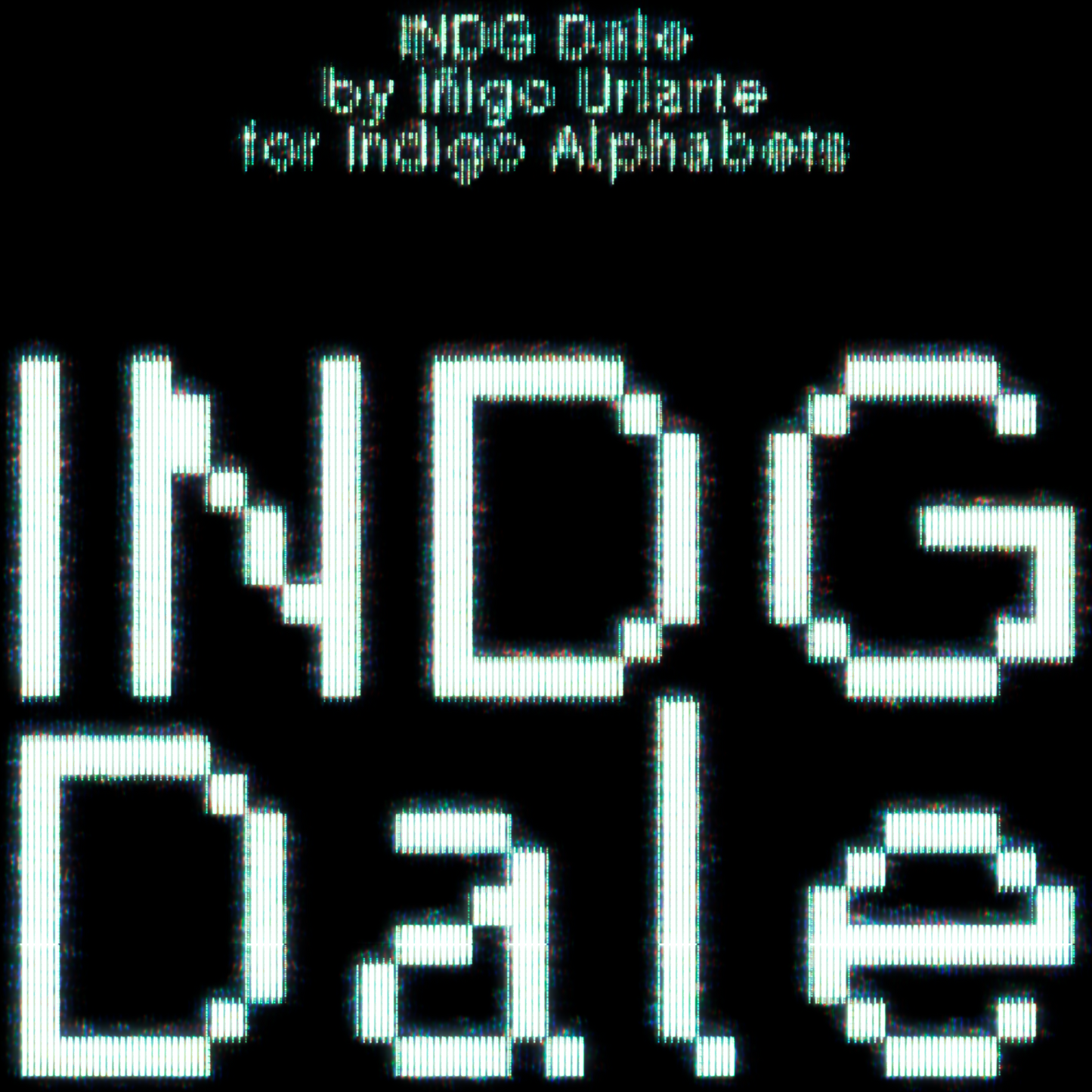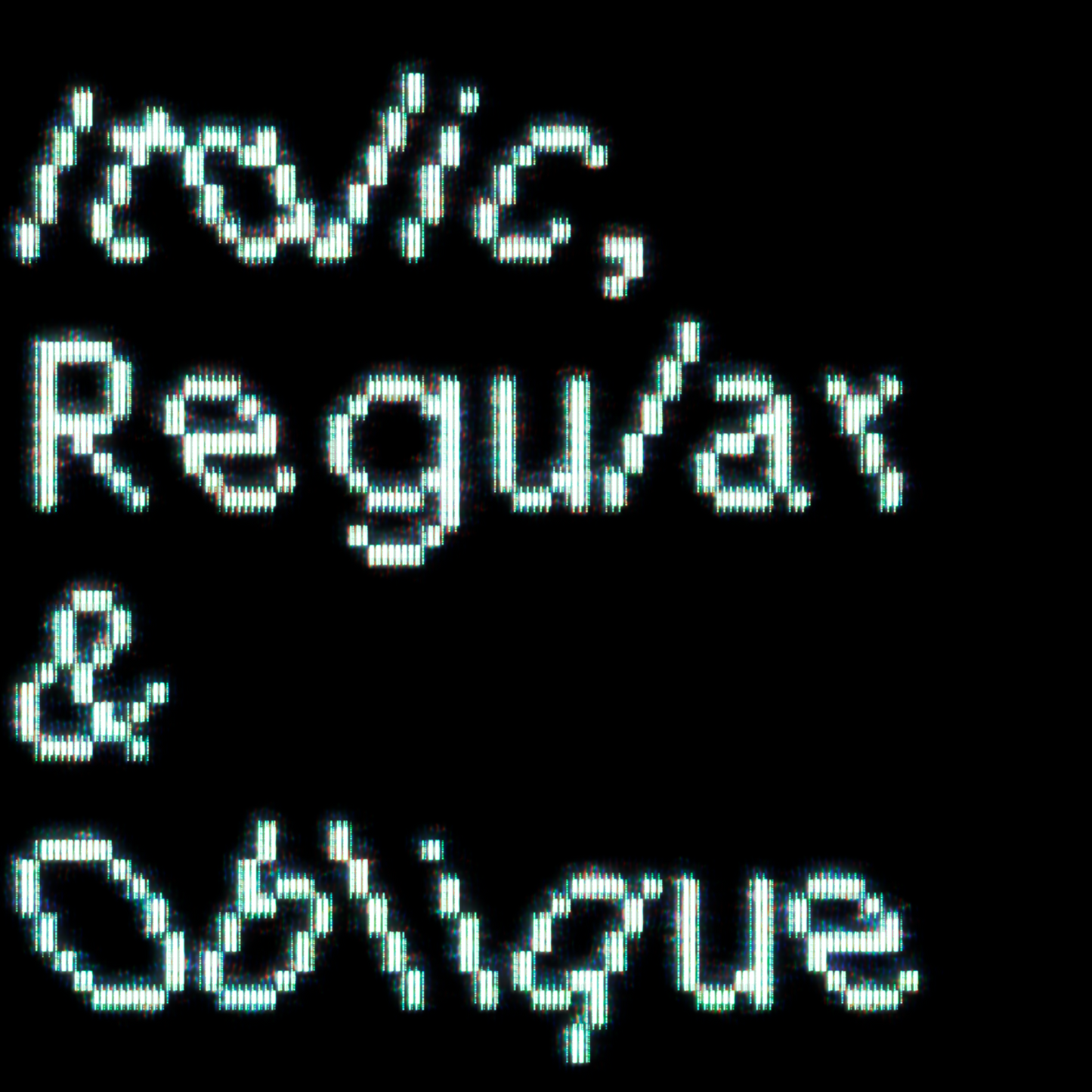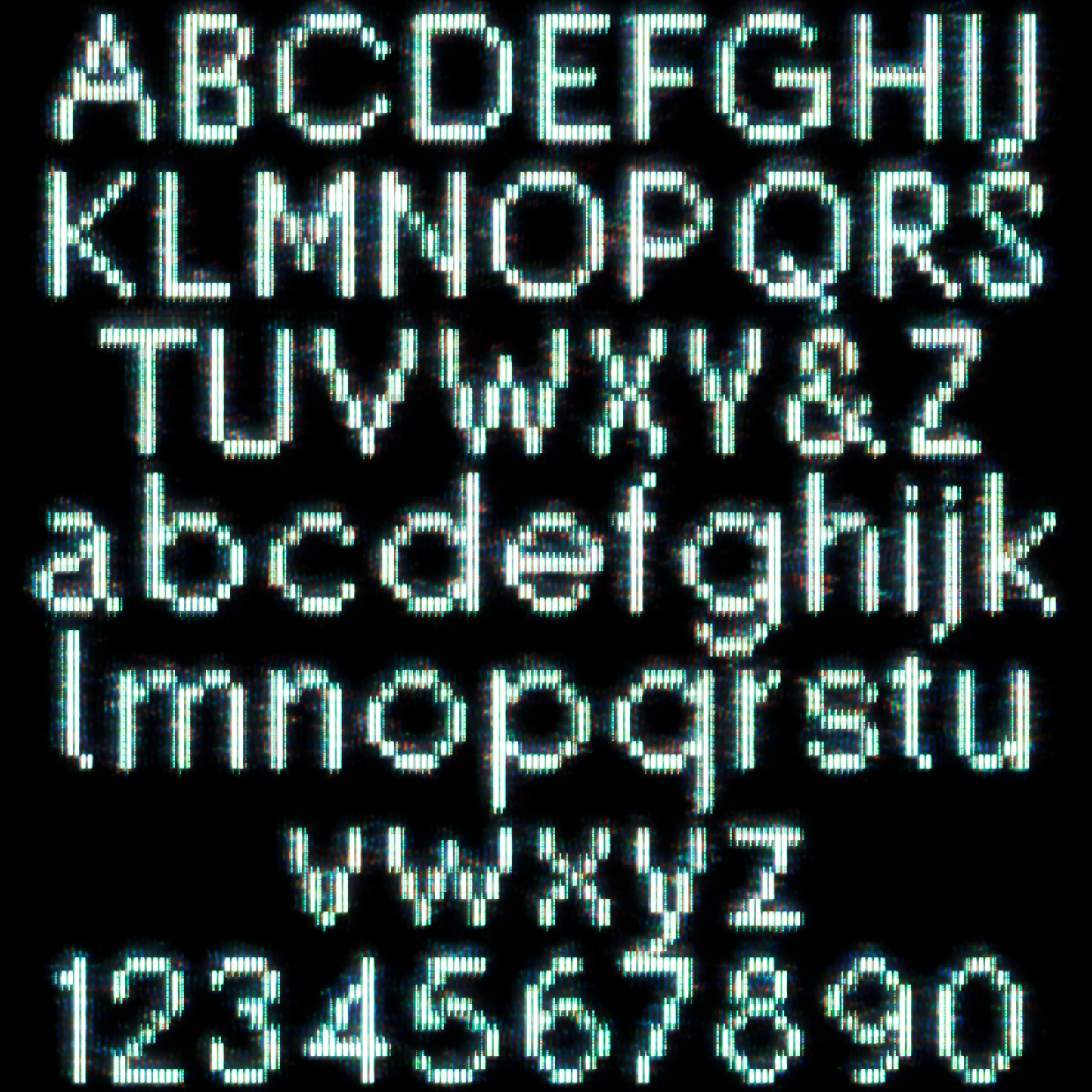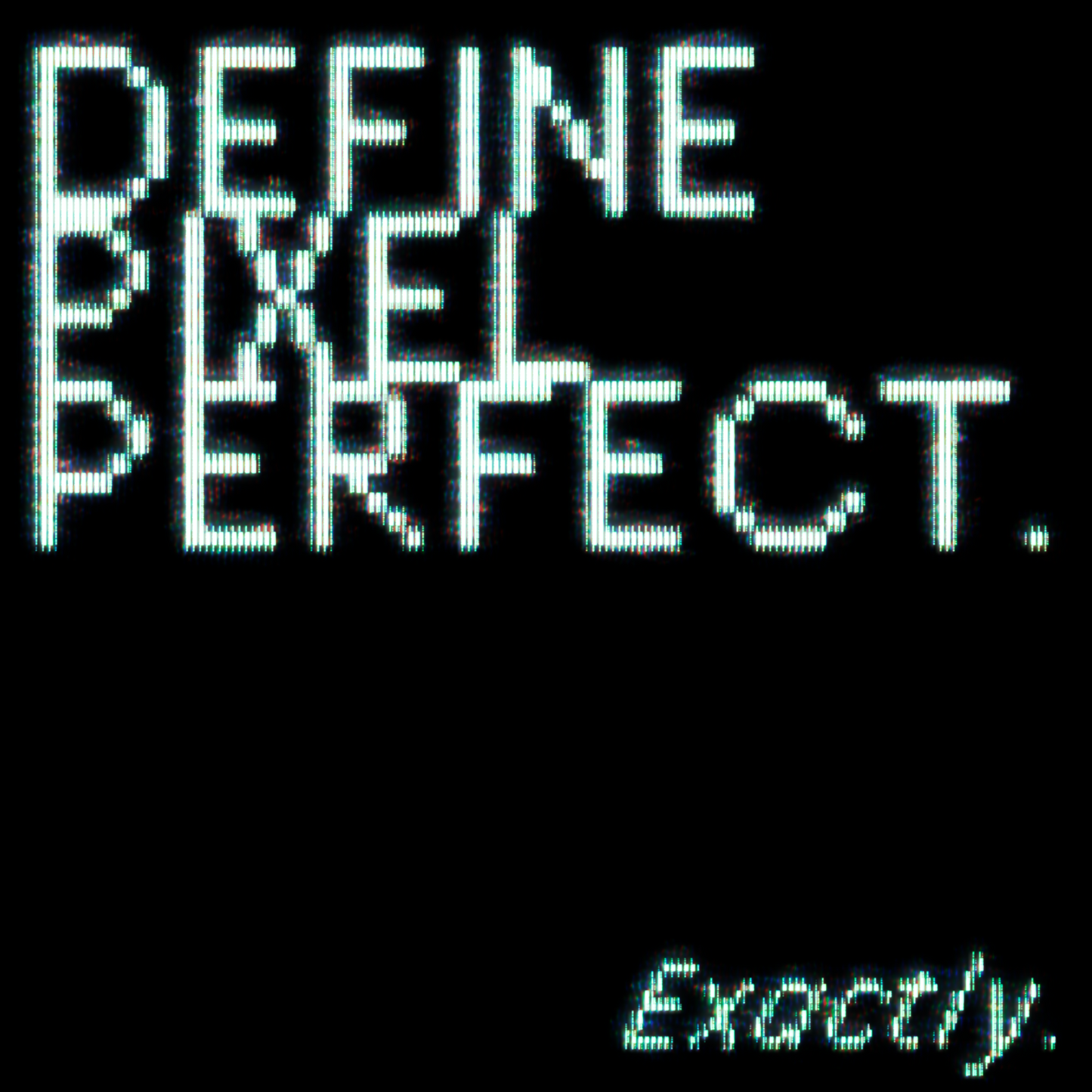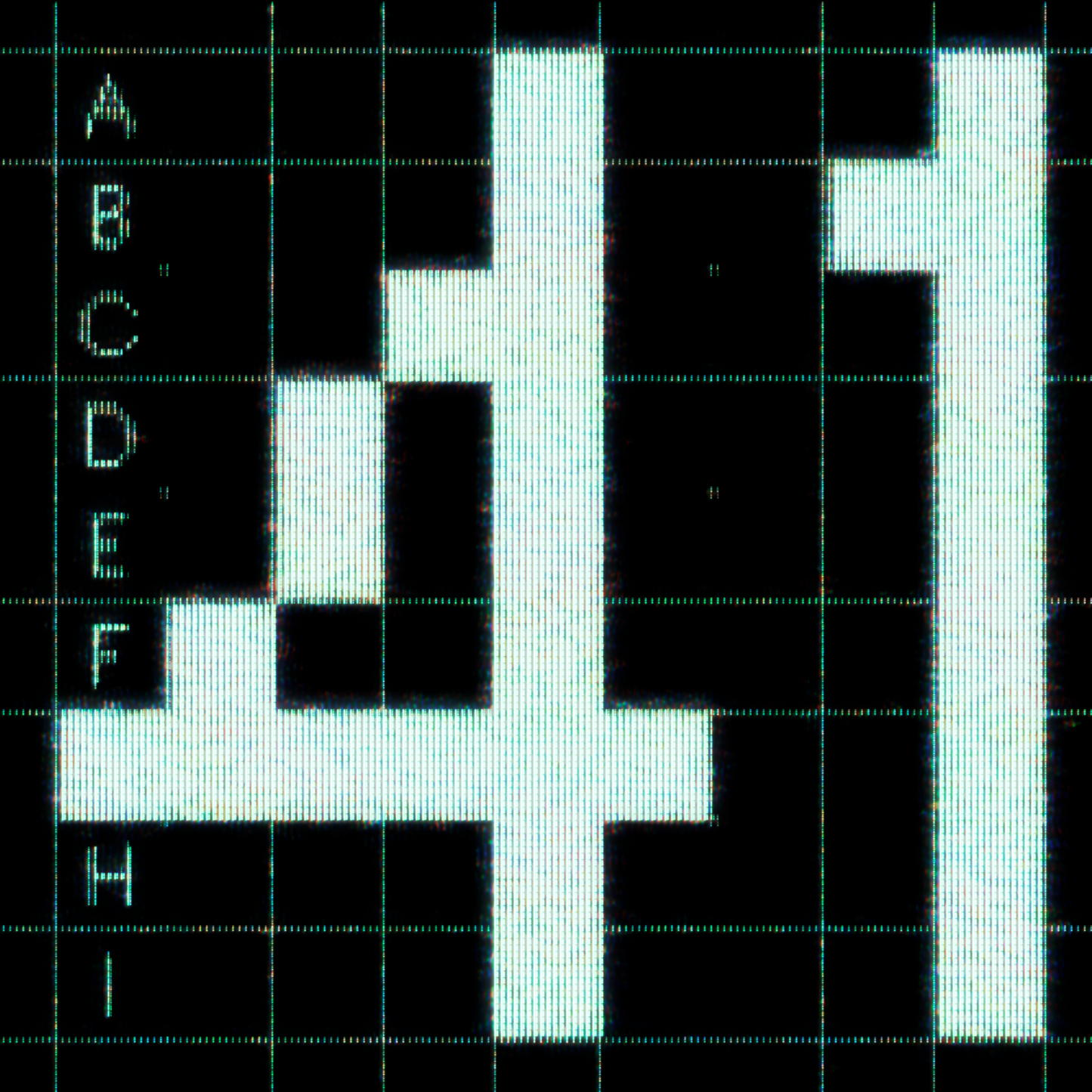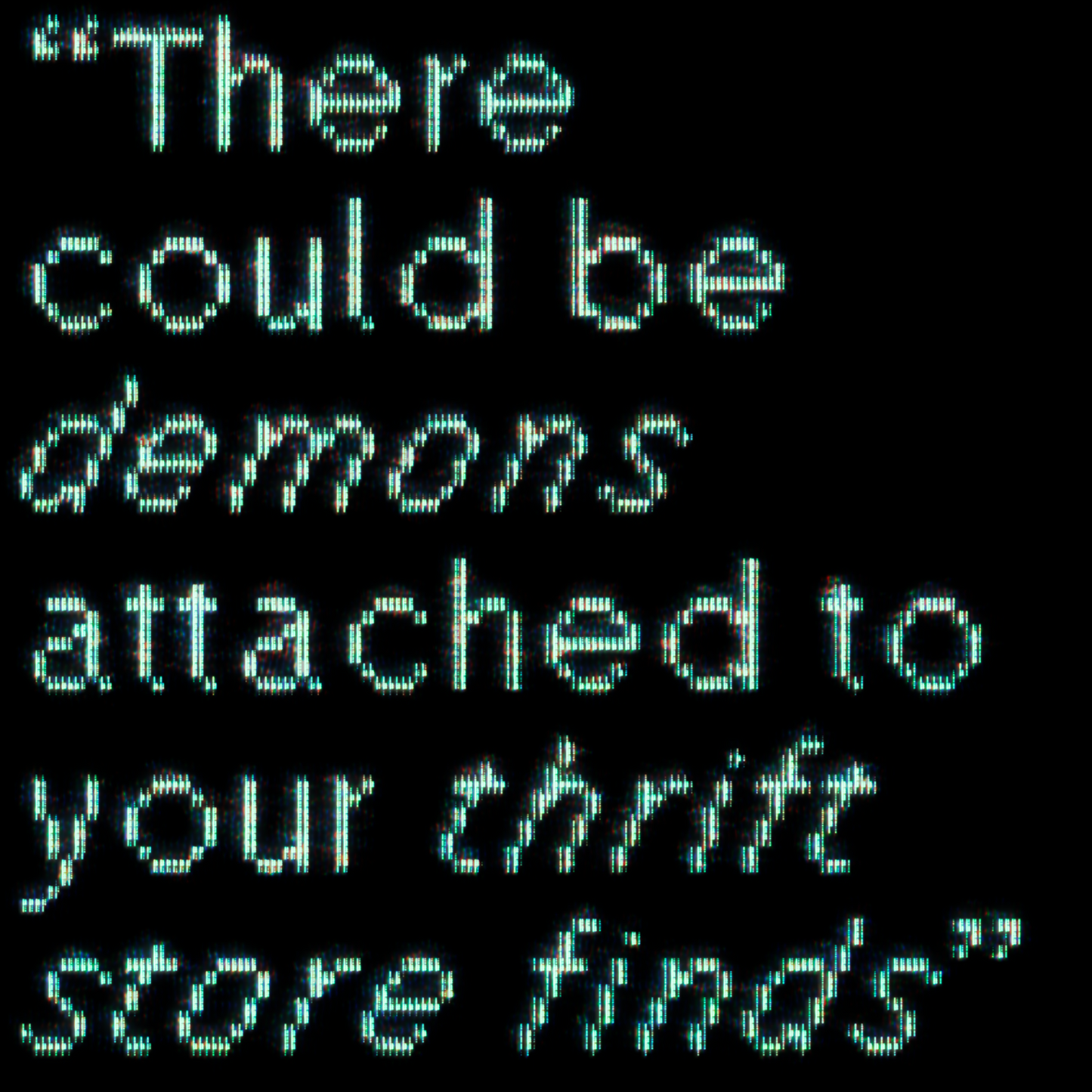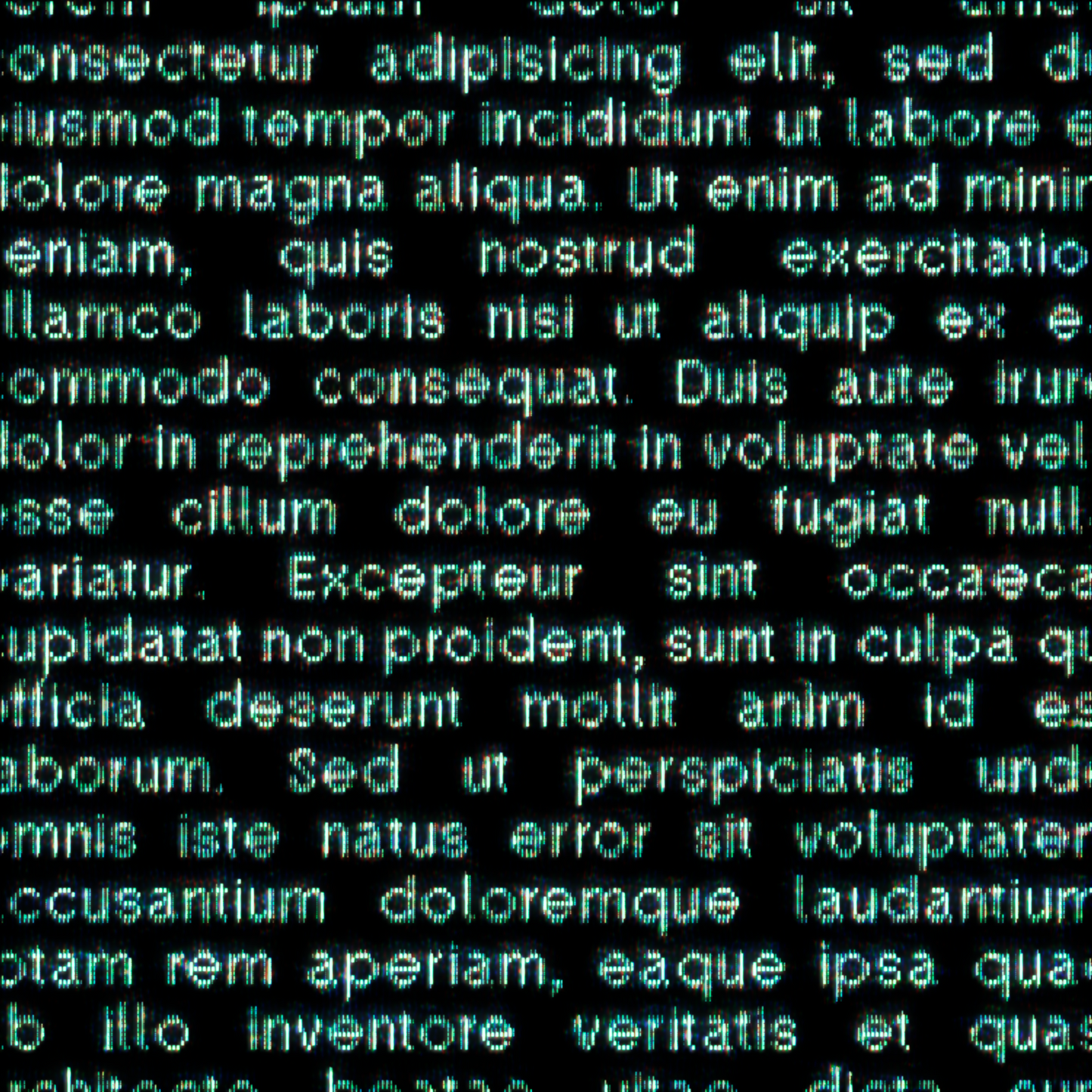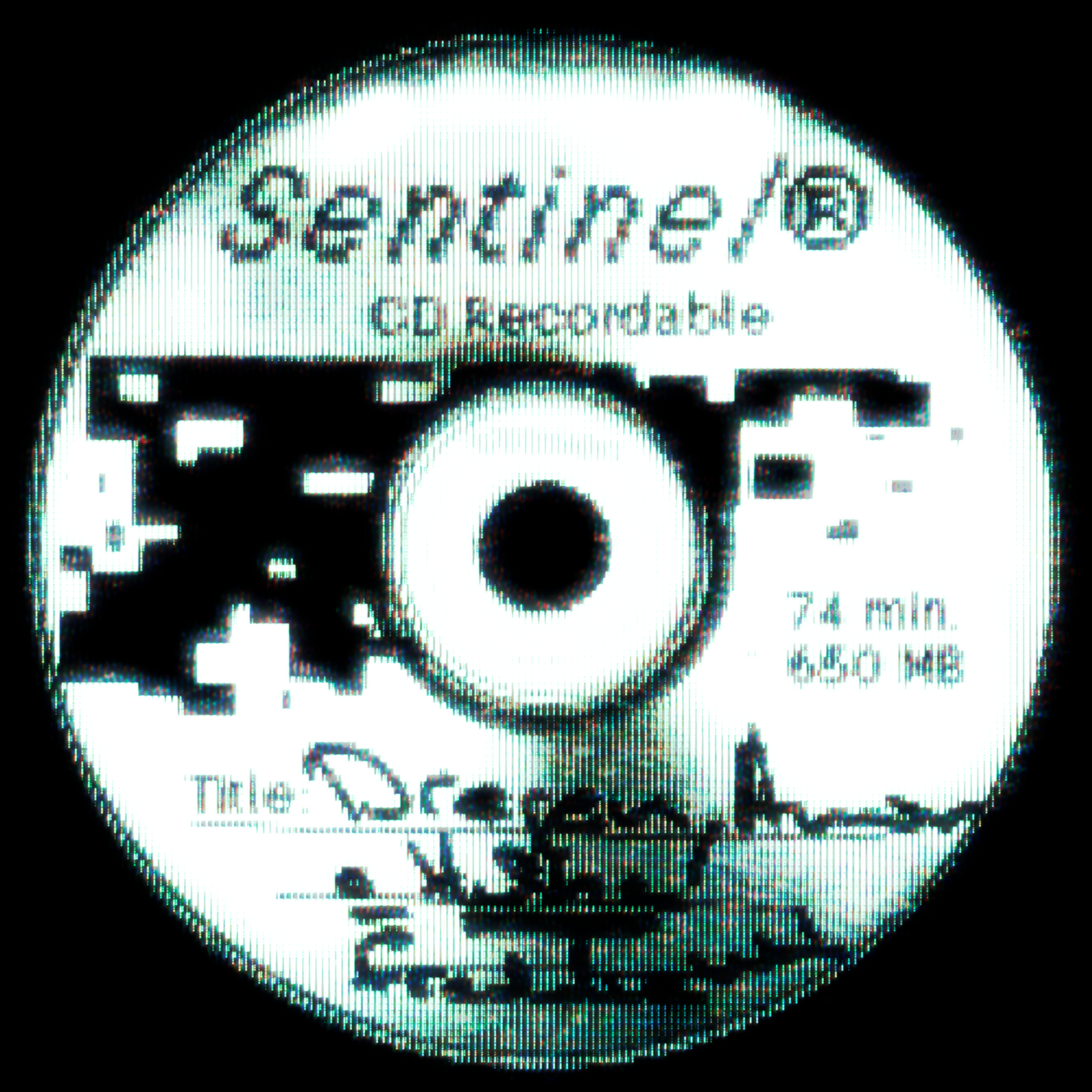
INDG Dale
Iñigo Uriarte
INDG Dale is a neutral bitmap typeface designed for clarity and versatility in pixel-based environments. With Regular, Oblique, and Italic styles, it balances functional legibility with subtle rhythm, making it well-suited for both UI applications and expressive digital typography.
Its restrained geometry ensures readability at small sizes, while the style variations provide flexibility for emphasis and hierarchy without disrupting visual consistency.
- 3 Styles
- Total glyph set: 428
- Basic Latin
- 100% Latin Extended-A
- Diacritics
- Punctuation & Symbols